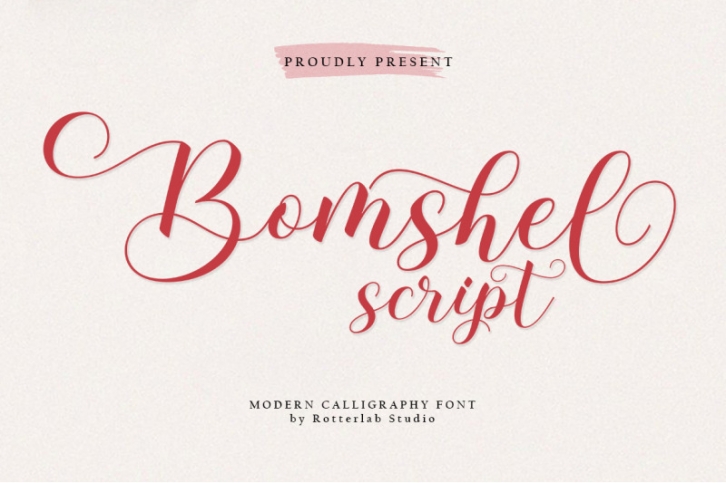
Bomshel Script is a new modern script font with an irregular base line. Trendy and feminine style. Bomshel Script looks beautiful in wedding invitations, thank you cards, quotes, greeting cards, logos, business cards, and more. Perfect for use in ink or watercolors. Includes initial letters and terminals, alternatives and support for many languages.